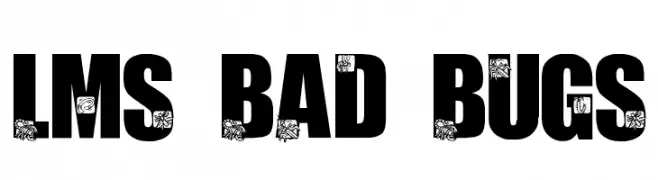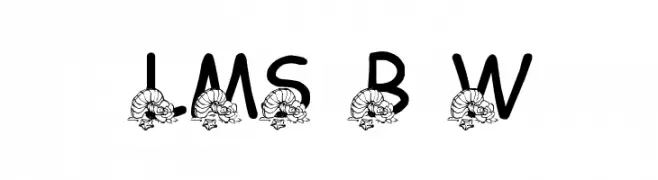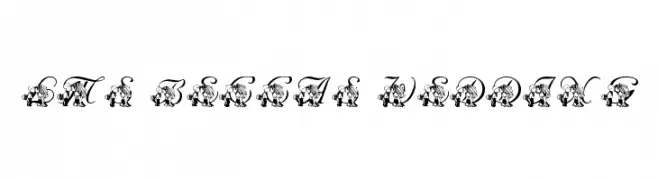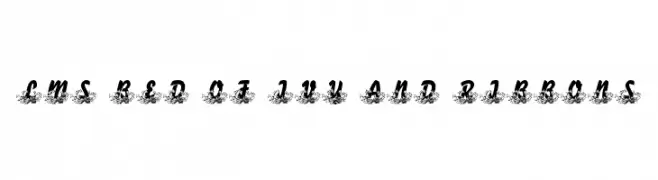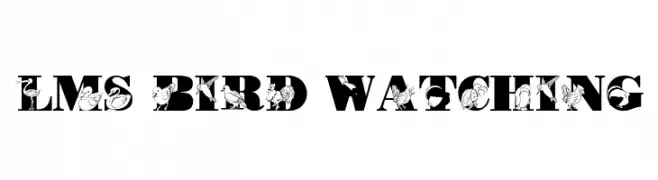
A bold, decorative font with bug illustrations on each character.
A playful, beach-themed decorative font with intricate interior designs.
A playful, decorative font with seashell motifs, perfect for beach-themed designs.
A decorative font with characters embedded in butterfly designs.
A decorative, whimsical font with intricate, storybook-style characters.
A decorative script font with ivy and ribbon embellishments.
A decorative font with comic-style character illustrations integrated into each letter and number.
A playful font with bold letters featuring integrated pacifier motifs.
A bold, decorative font with integrated bird motifs for a whimsical touch.
A bold, decorative font featuring bird illustrations within each character.